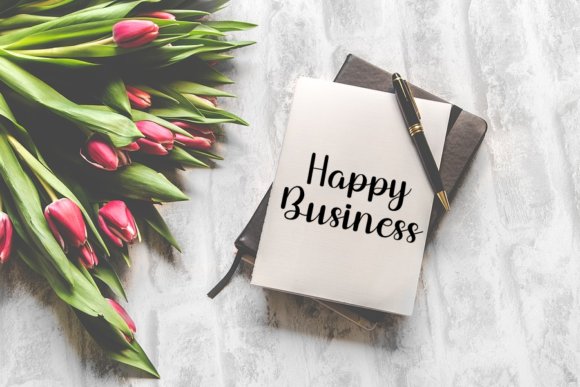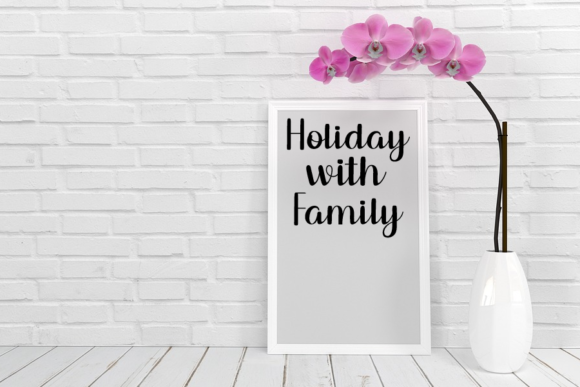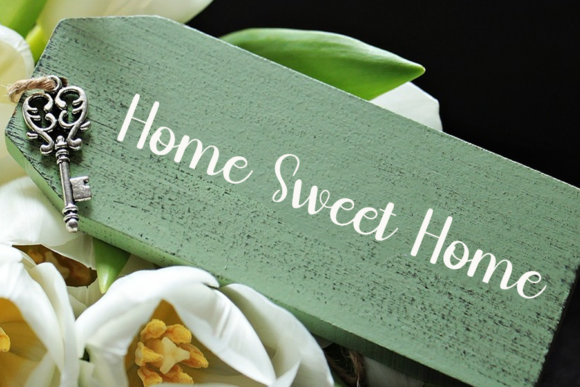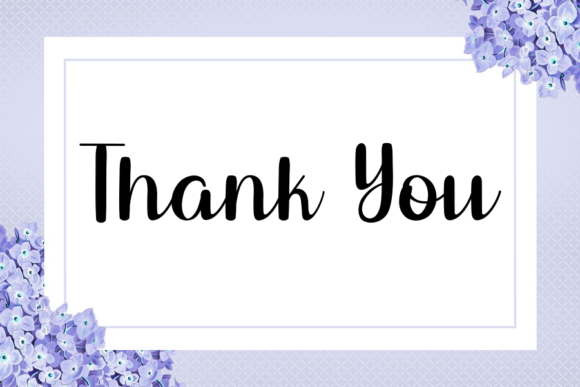
Introducing Handmade Vintage Font: Elevate Your Creativity with Elegance
Are you a designer, crafter, or DIY enthusiast looking for a font that adds a touch of sophistication and whimsy to your projects? Look no further than the Handmade Vintage Font, a magical script font that embodies elegance and charm. In this article, we’ll dive into the world of Handmade Vintage, exploring its features, benefits, and uses, as well as provide tips on how to make the most of this beautiful font.
What is Handmade Vintage Font?
Handmade Vintage is a carefully crafted script font that exudes a sense of luxury and refinement. With its intricate lettering and flowing curves, this font is perfect for adding a touch of vintage glamour to any project. Whether you’re creating social media graphics, invitations, or DIY crafts, Handmade Vintage Font is sure to impress.
Features of Handmade Vintage Font
- Elegant Script Letters: Handmade Vintage features beautifully designed script letters that are perfect for creating eye-catching headlines, titles, and quotes.
- Touch of Whimsy: This font has a playful, handmade quality that adds a touch of whimsy to any project.
- Highly Versatile: Handmade Vintage Font can be used for a wide range of projects, from Instagram graphics to calligraphy scripts, and even DIY crafts.
- Easy to Read: Despite its ornate design, Handmade Vintage Font is surprisingly easy to read, making it perfect for body text and captions.
Uses for Handmade Vintage Font
So, how can you use Handmade Vintage Font in your creative projects? Here are a few ideas to get you started:
- Instagram Graphics: Add a touch of elegance to your Instagram feed with Handmade Vintage Font. Use it to create eye-catching captions, quotes, or even Instagram stories.
- Calligraphy Scripts: Handmade Vintage Font is perfect for creating beautiful calligraphy scripts for DIY projects, such as wedding invitations, party decorations, or gift tags.
- DIY Crafts: Use Handmade Vintage Font to add a personal touch to your DIY crafts, such as scrapbooking, journaling, or card making.
- Branding and Packaging: This font is also suitable for branding and packaging projects, such as logo design, labels, or product packaging.
Tips for Using Handmade Vintage Font
To get the most out of Handmade Vintage Font, here are a few tips to keep in mind:
- Use it Sparingly: While Handmade Vintage Font is beautiful, it can be overwhelming if used excessively. Use it sparingly to add a touch of elegance to your project.
- Experiment with Colors: Handmade Vintage Font looks stunning in a variety of colors. Experiment with different hues and combinations to find the perfect look for your project.
- Pair it with Other Fonts: For added visual interest, try pairing Handmade Vintage Font with other fonts, such as a clean sans-serif or a bold serif font.
In conclusion, Handmade Vintage Font is a magical script font that adds a touch of elegance and whimsy to any project. With its intricate lettering, flowing curves, and highly versatile design, this font is perfect for designers, crafters, and DIY enthusiasts looking to elevate their creativity. Whether you’re creating social media graphics, calligraphy scripts, or DIY crafts, Handmade Vintage Font is sure to turn your creative ideas into true pieces of art.